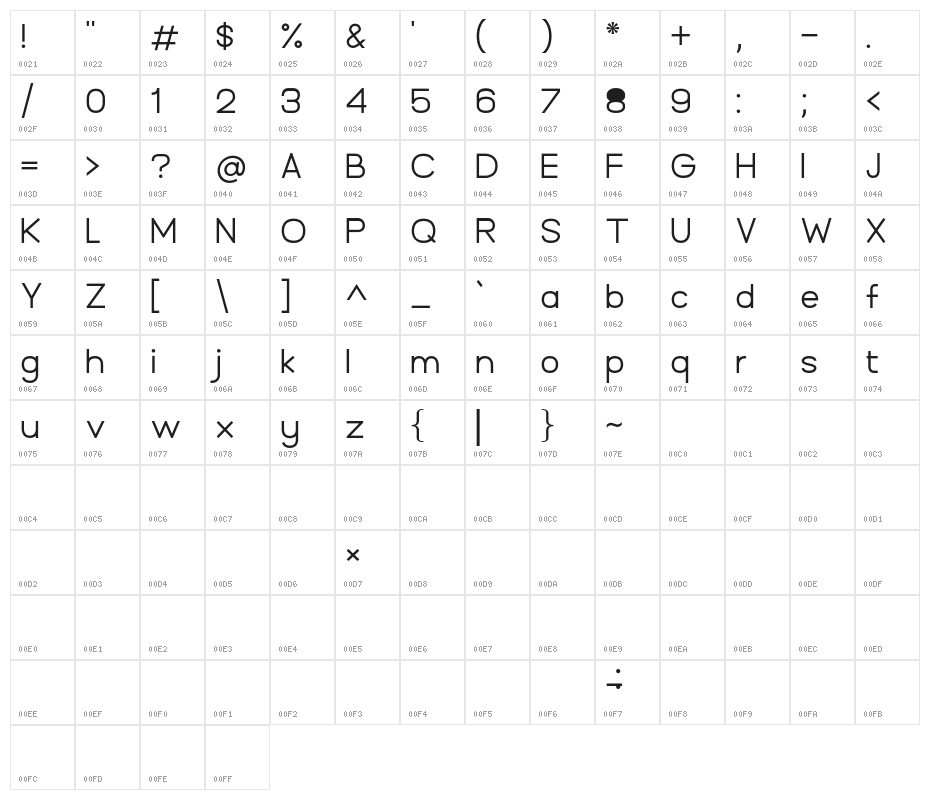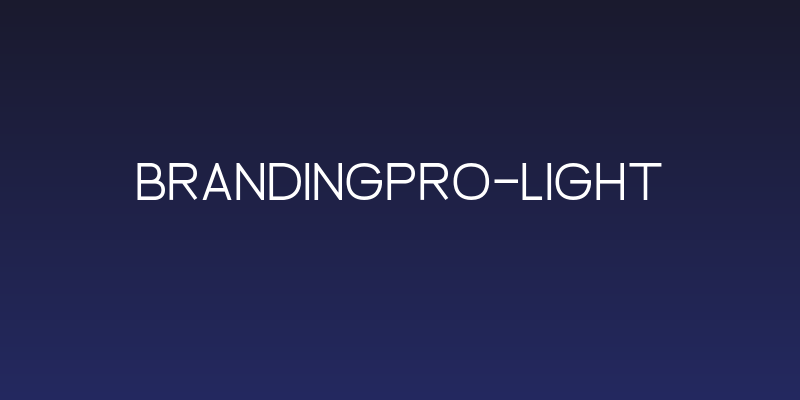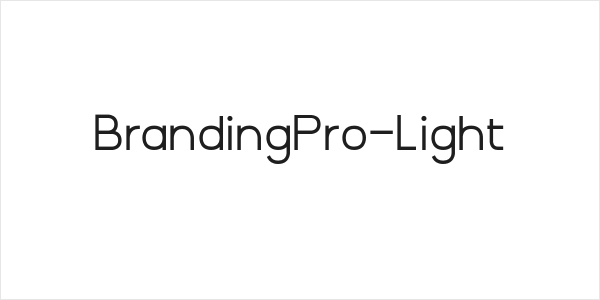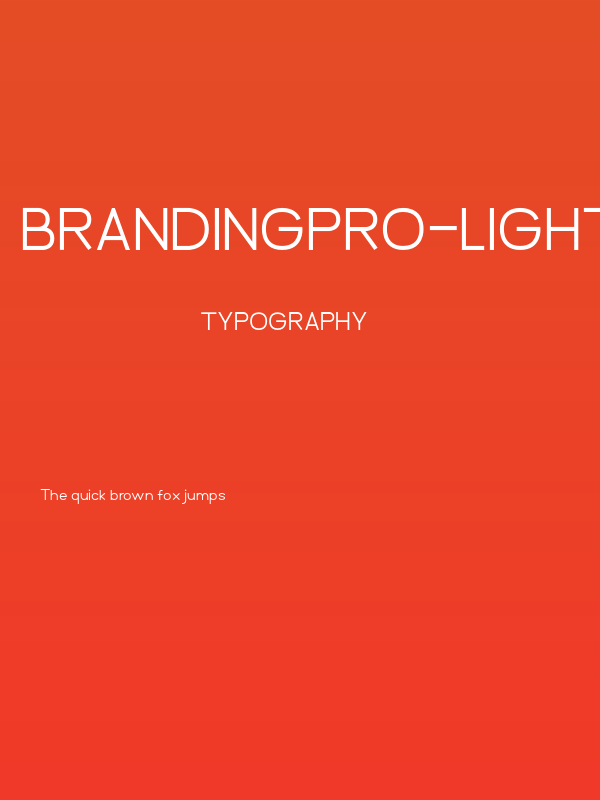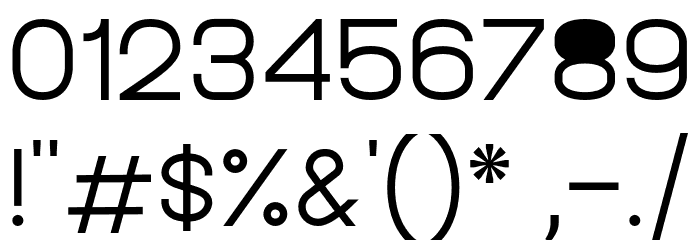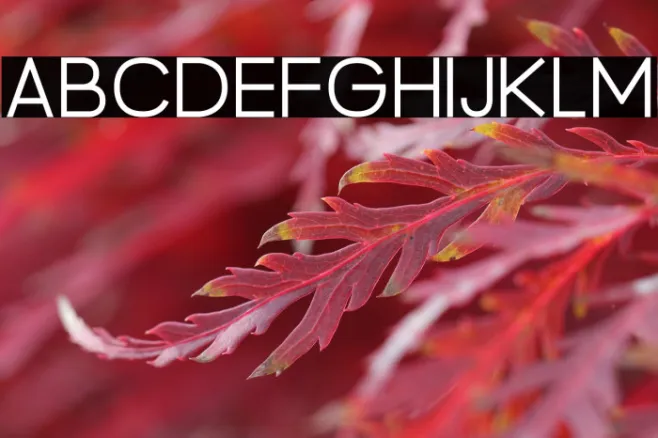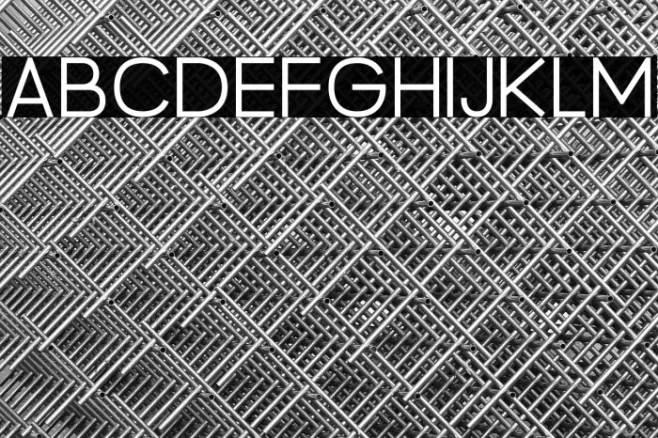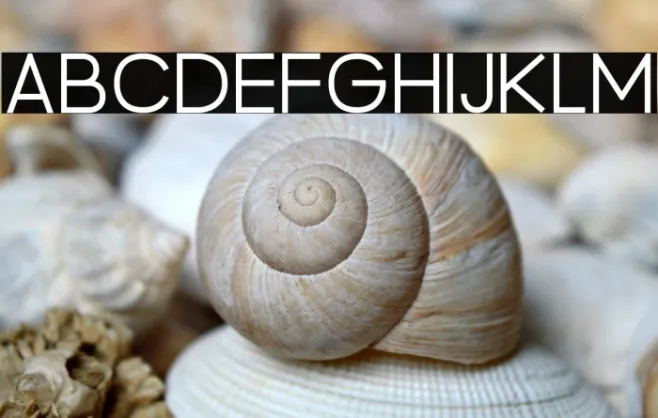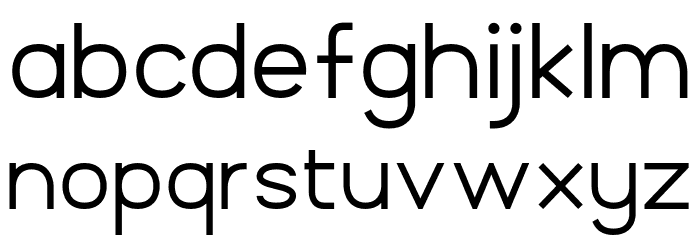
BrandingPro-Light Font
BrandingPro-Light Description
This font features a clean and modern sans-serif design with a light weight, making it ideal for contemporary projects. The characters are well-proportioned with a consistent stroke width, contributing to its sleek and minimalist appearance. The uppercase and lowercase letters are designed with a geometric precision, while the numerals and special characters maintain a uniform style that complements the alphabet. Its simplicity and clarity make it versatile for various applications, providing a professional and polished look.
| Proposed Projects | Ideal for branding, corporate identity, web design, and editorial layouts. |